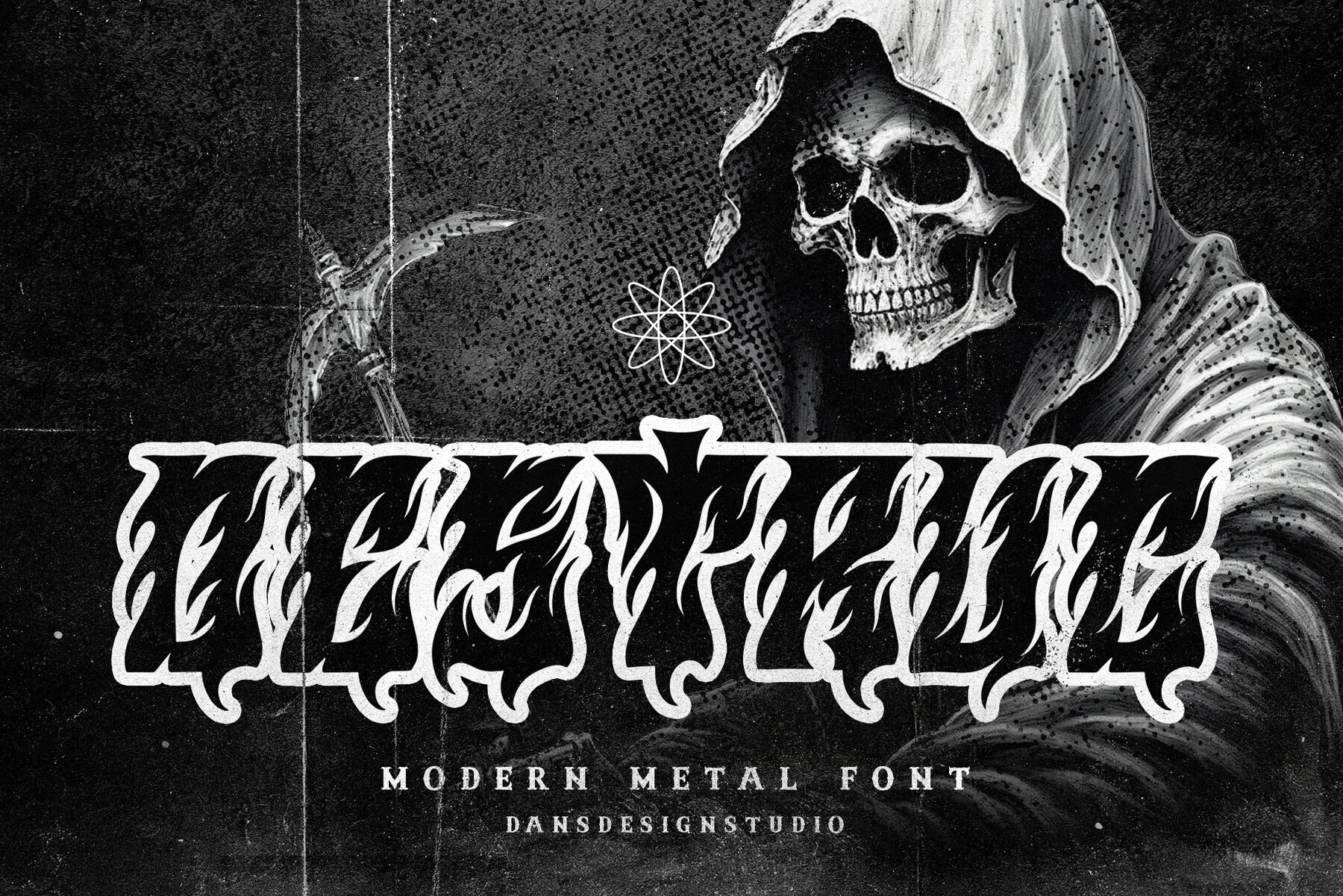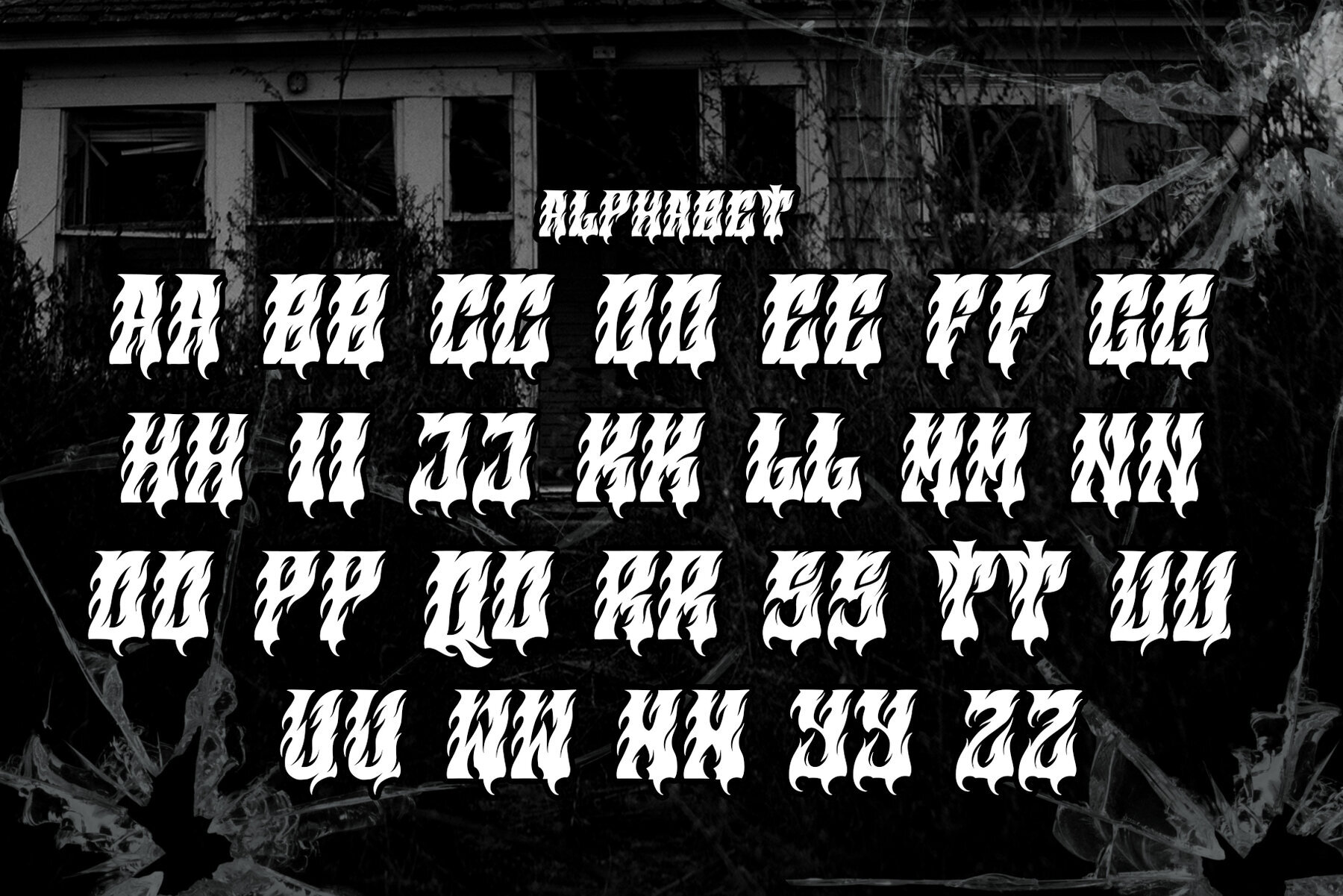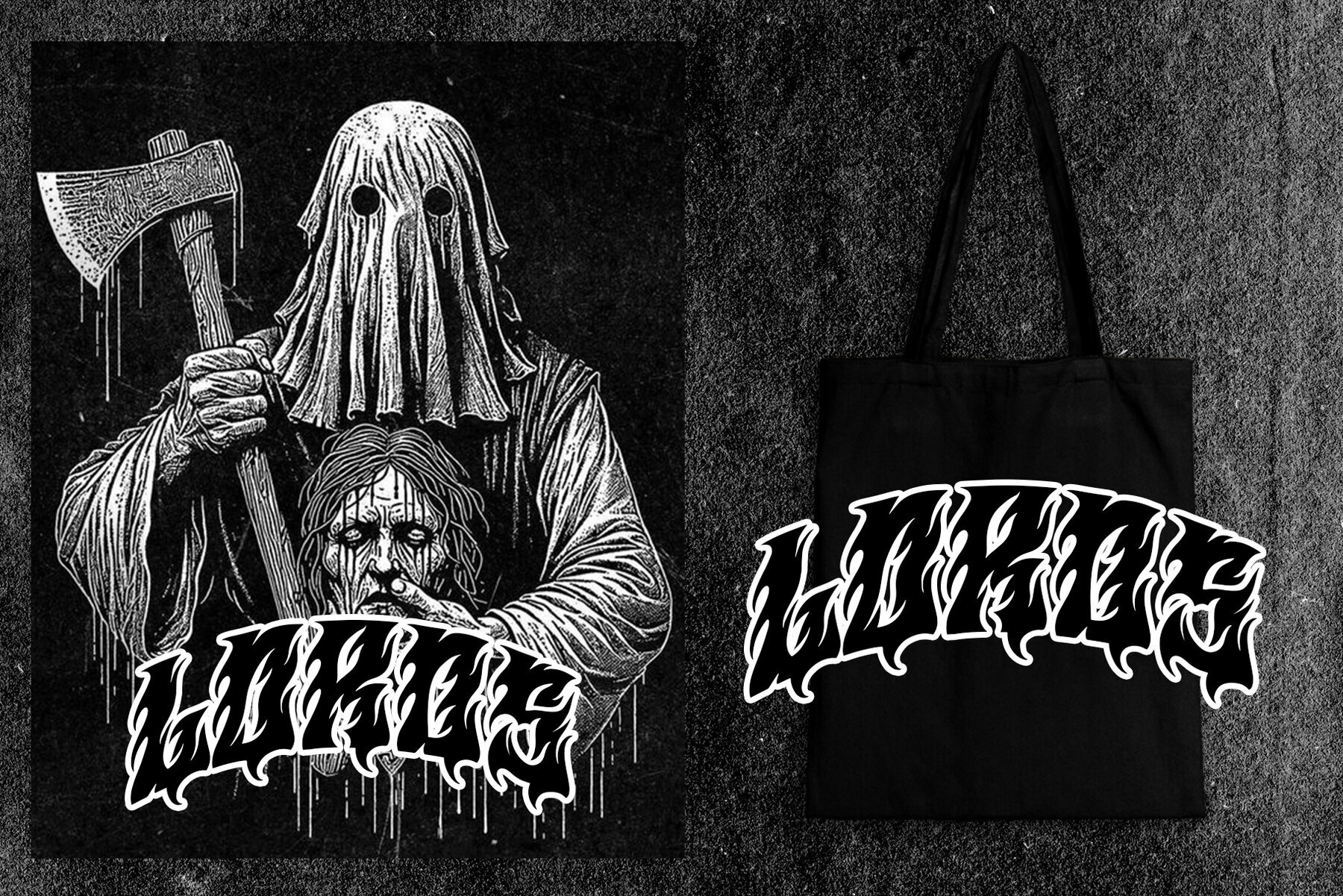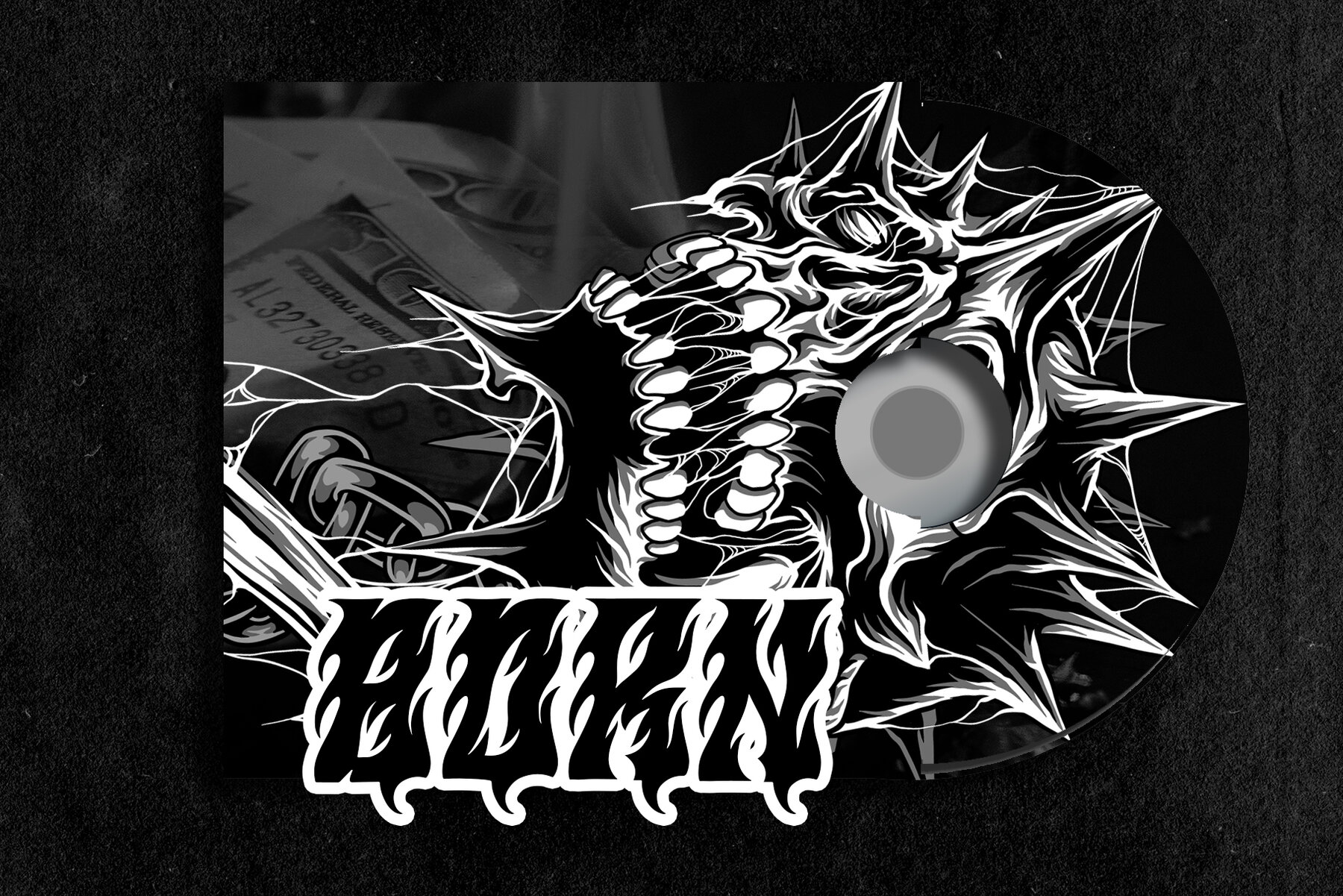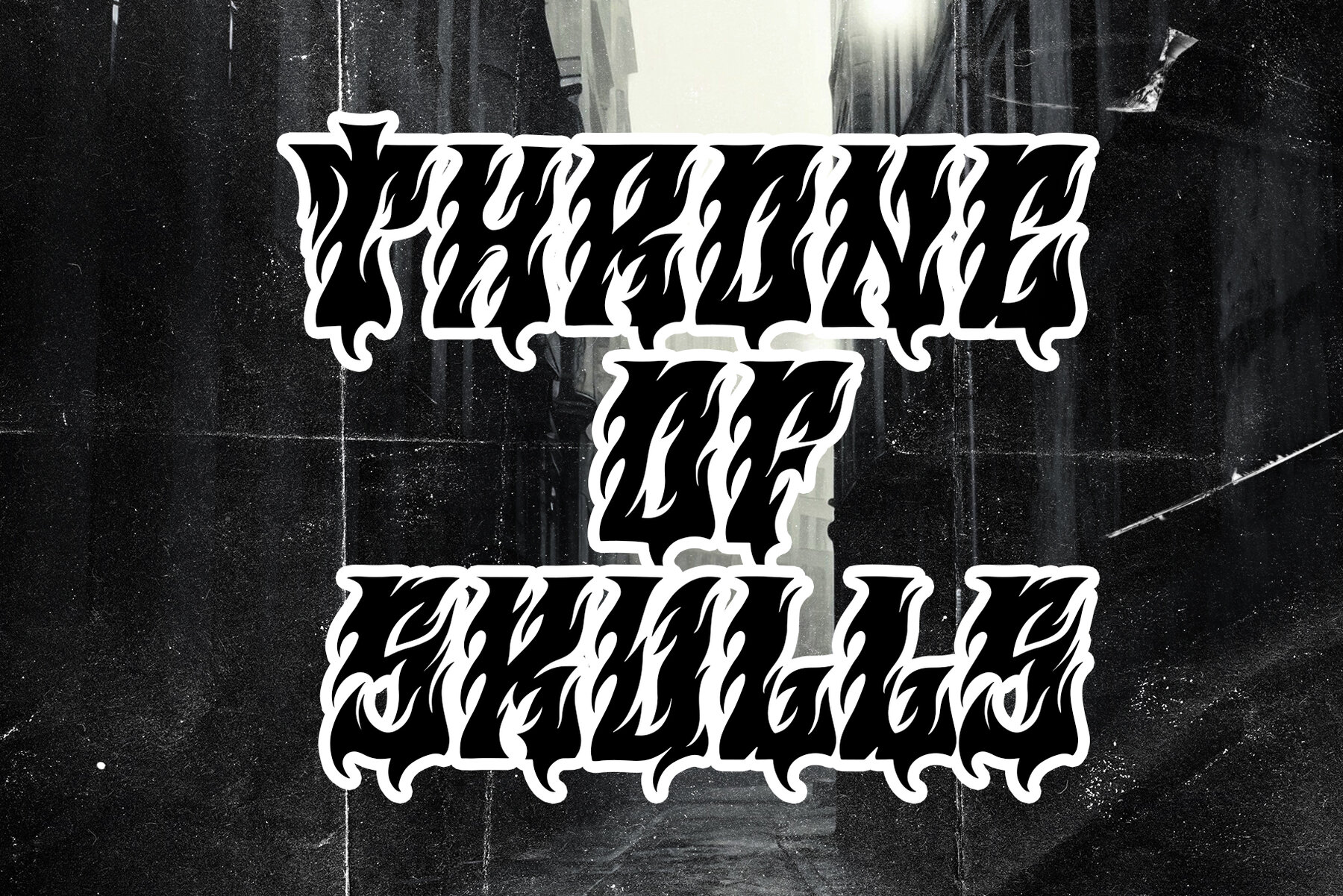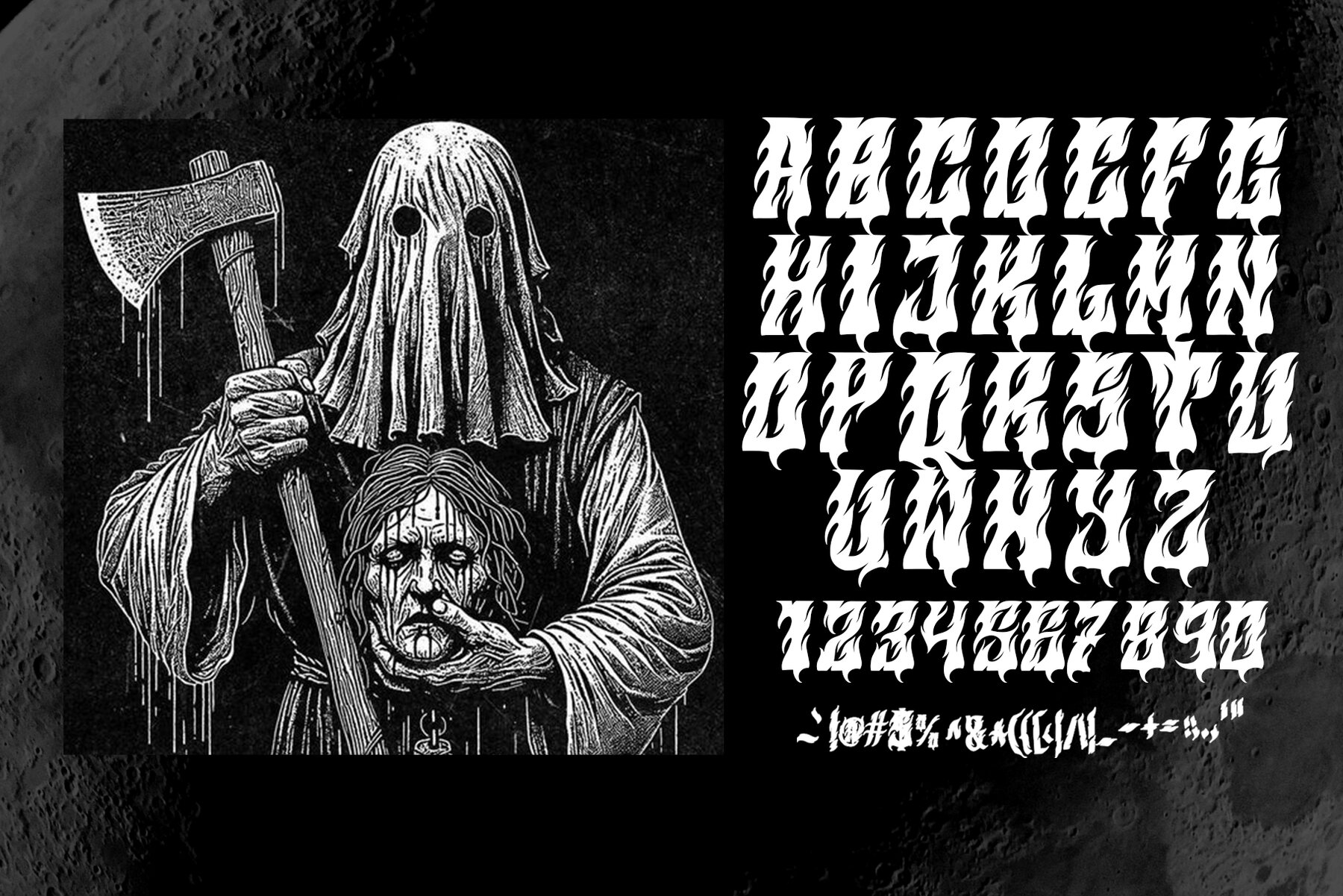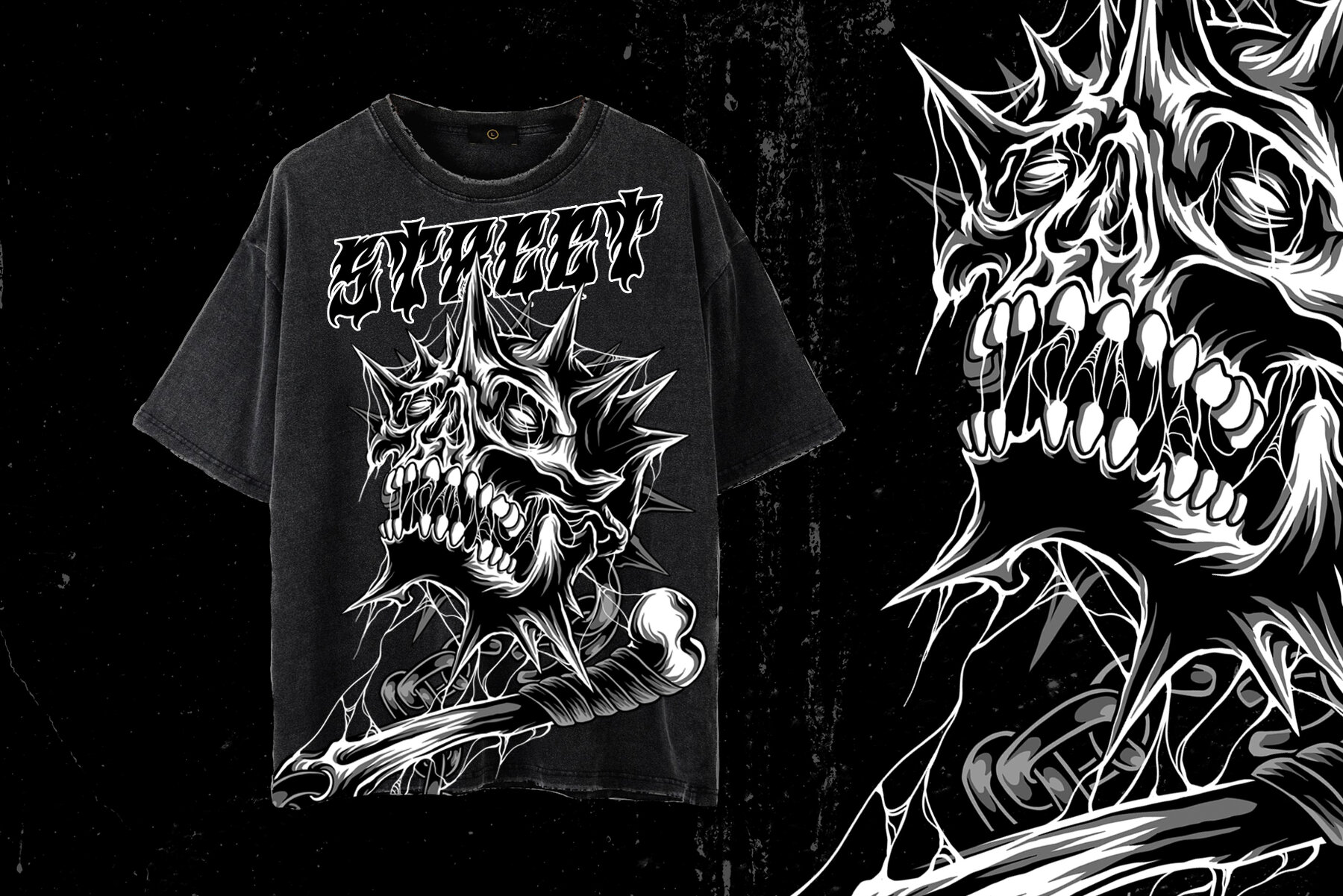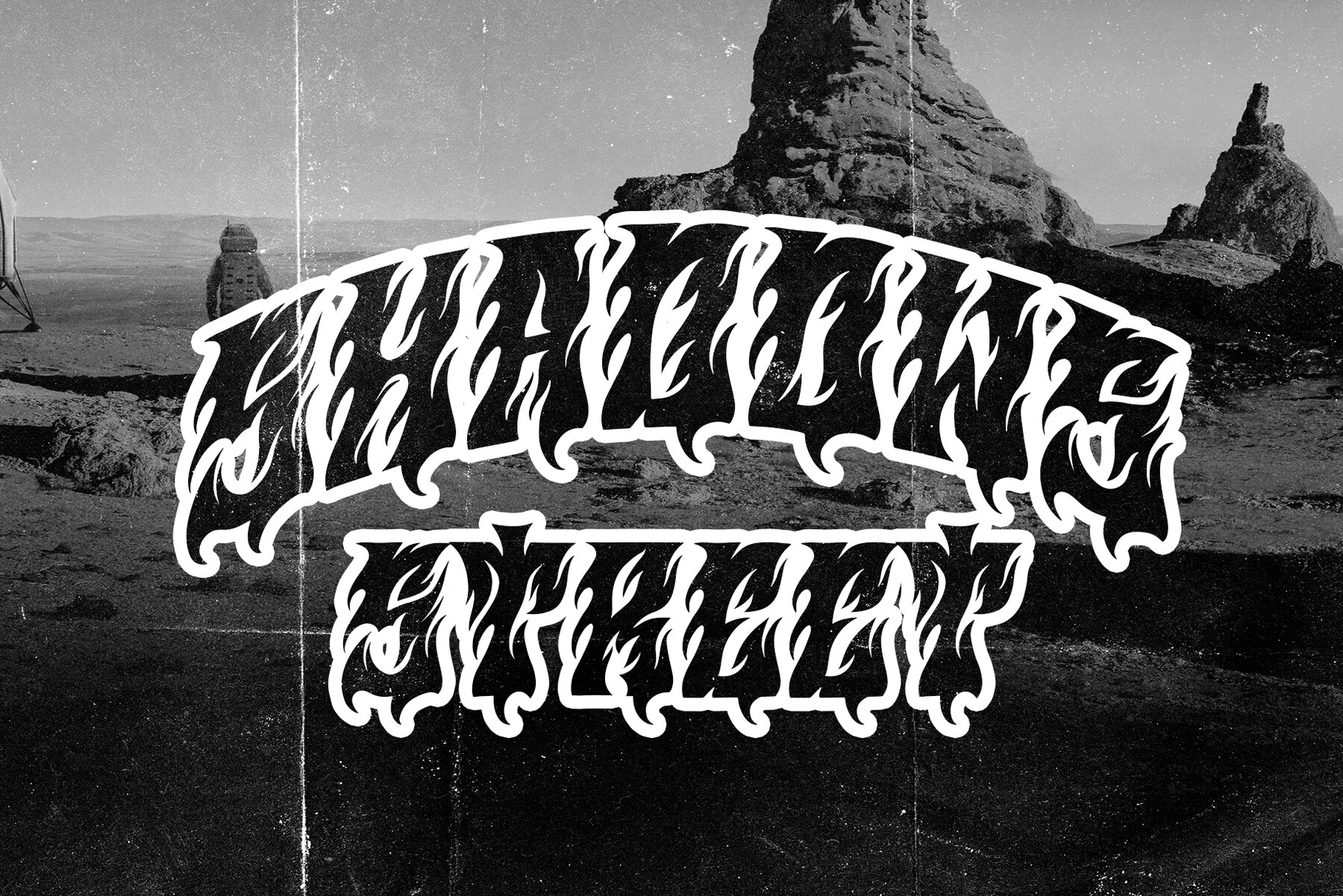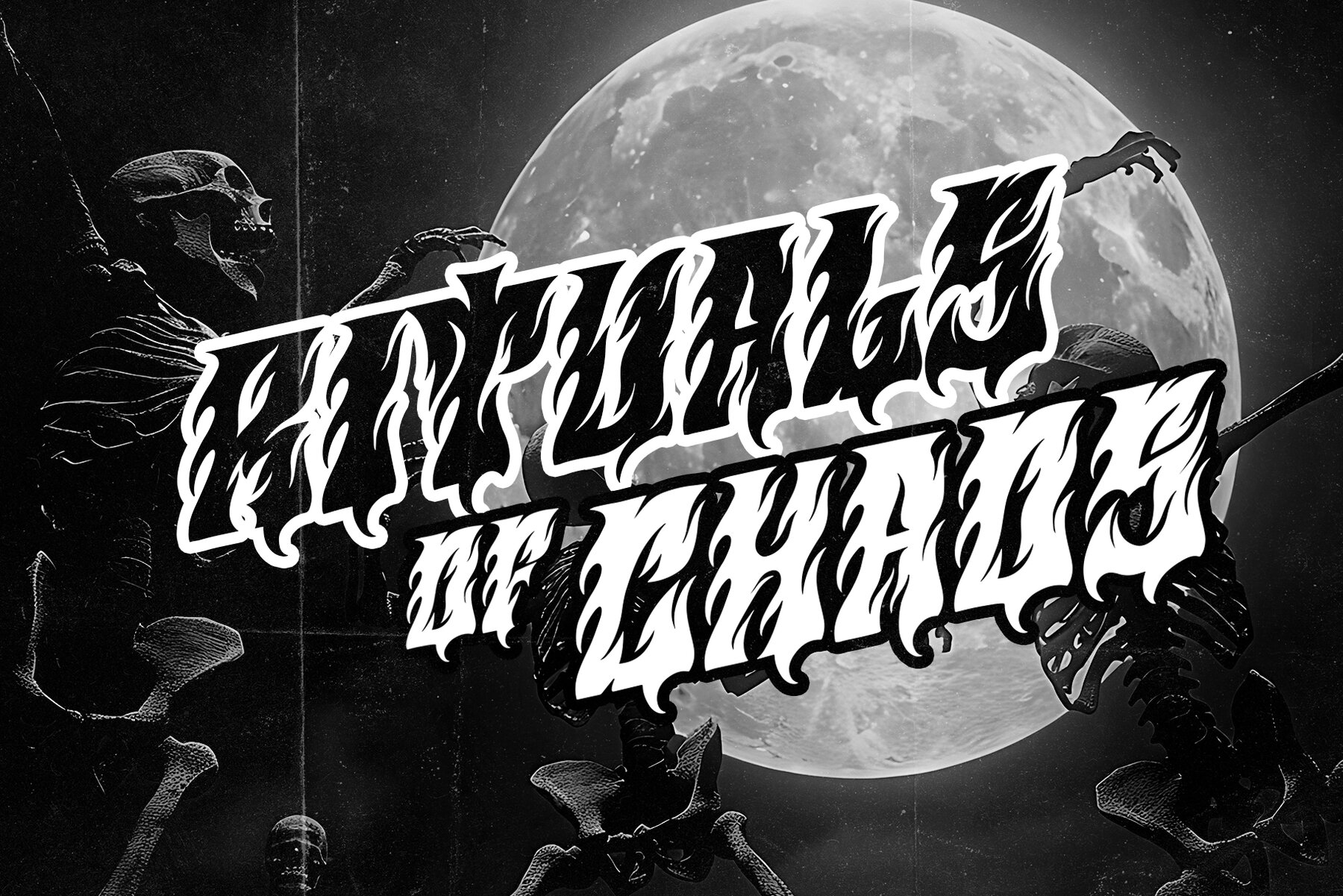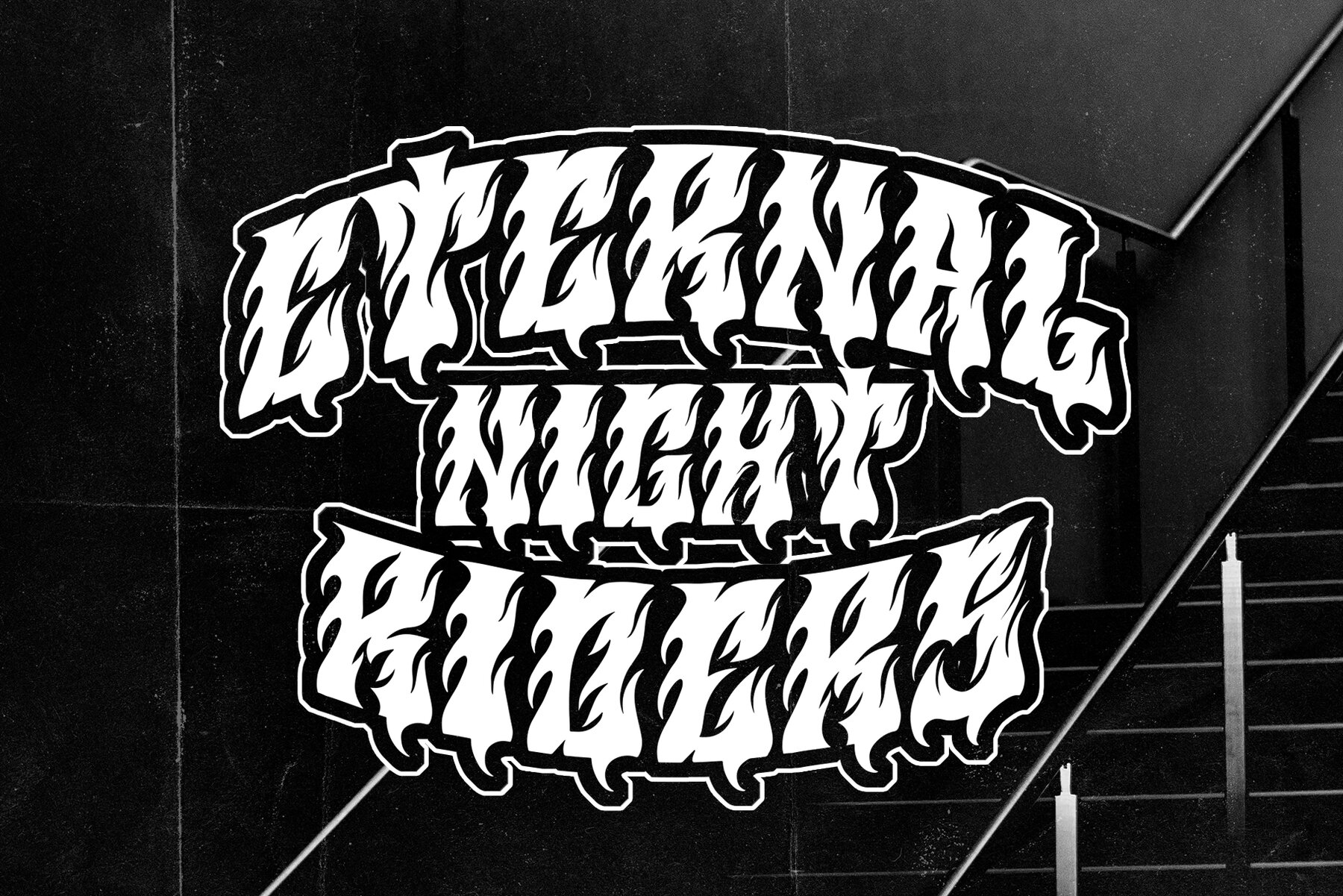
Destruc Font
Destruc is a bold display font that fuses the sharp aesthetics of blackletter with the raw energy of heavy metal. Featuring edgy strokes and aggressive details, it’s perfect for projects that demand a bold, rebellious flair. Whether you're designing logos for metal bands, creating striking music posters, or developing a streetwear brand, this typeface stands out. Its modern blackletter design makes it a versatile choice for vintage or retro projects, infusing them with a strong, dramatic vibe.Destruc: A Modern Metal Typeface
Flexible in Style